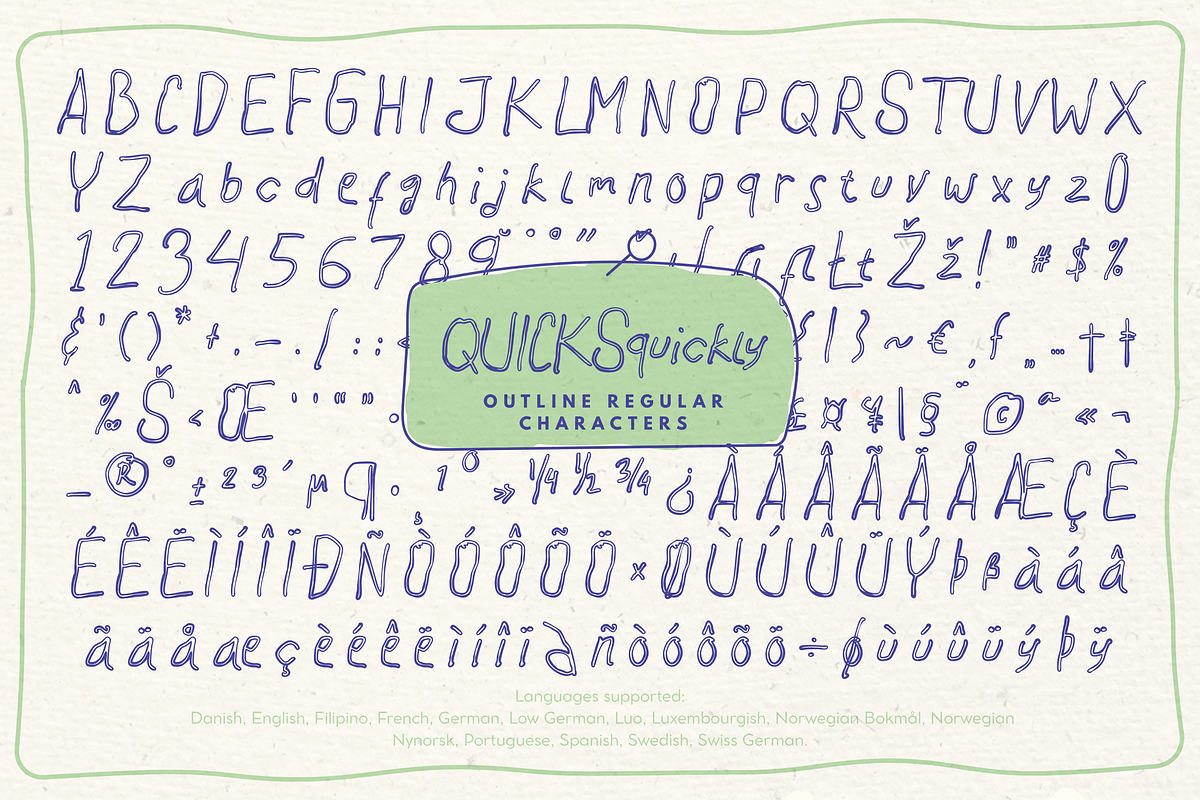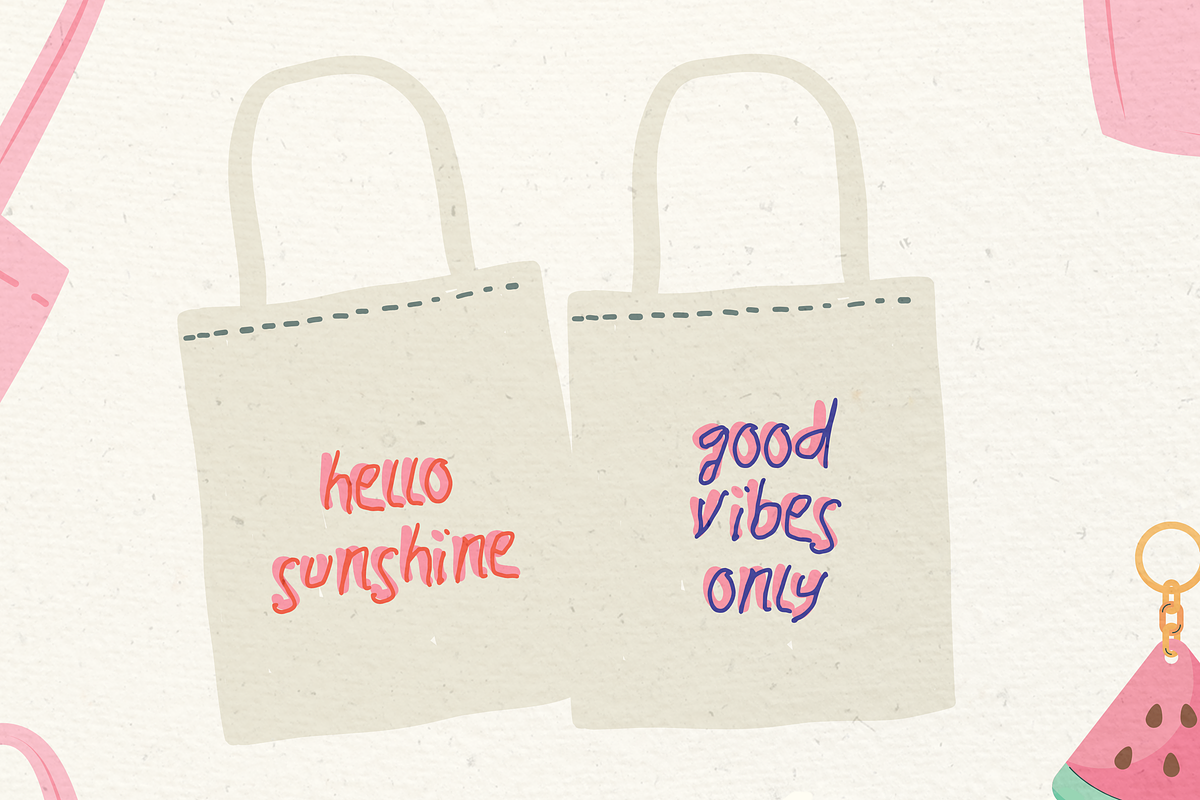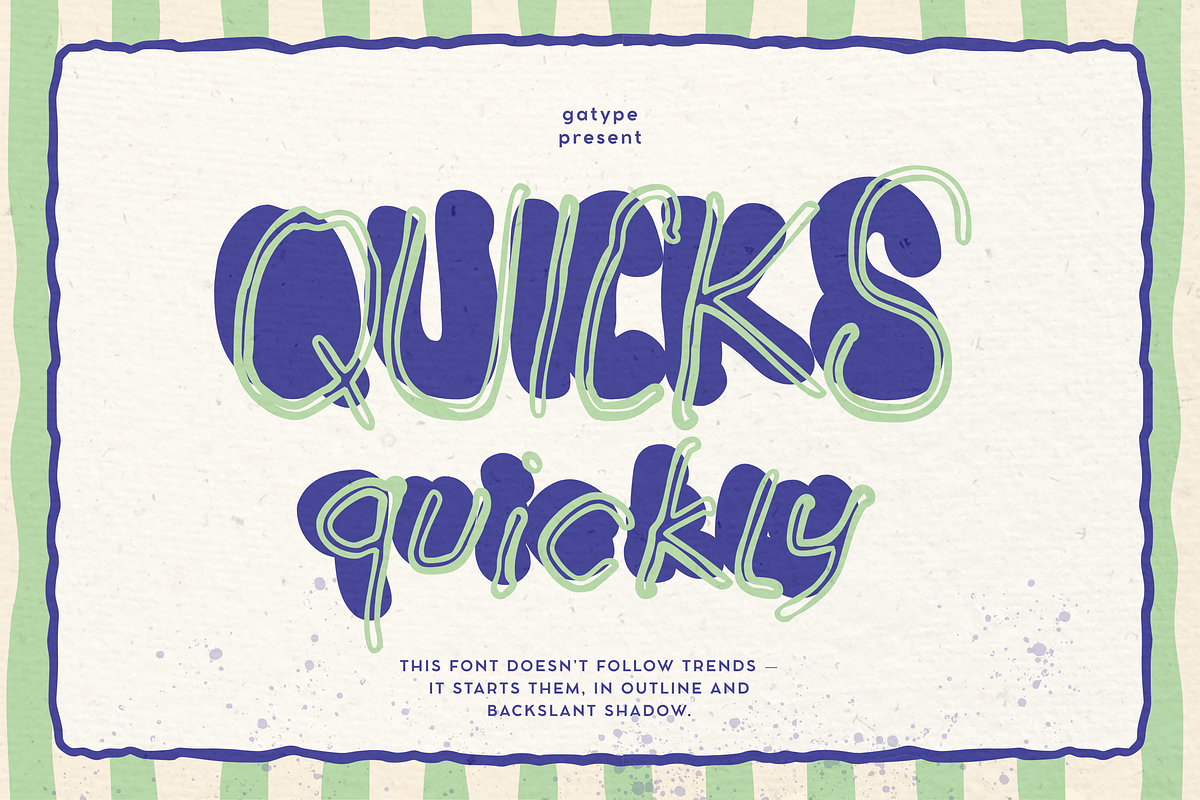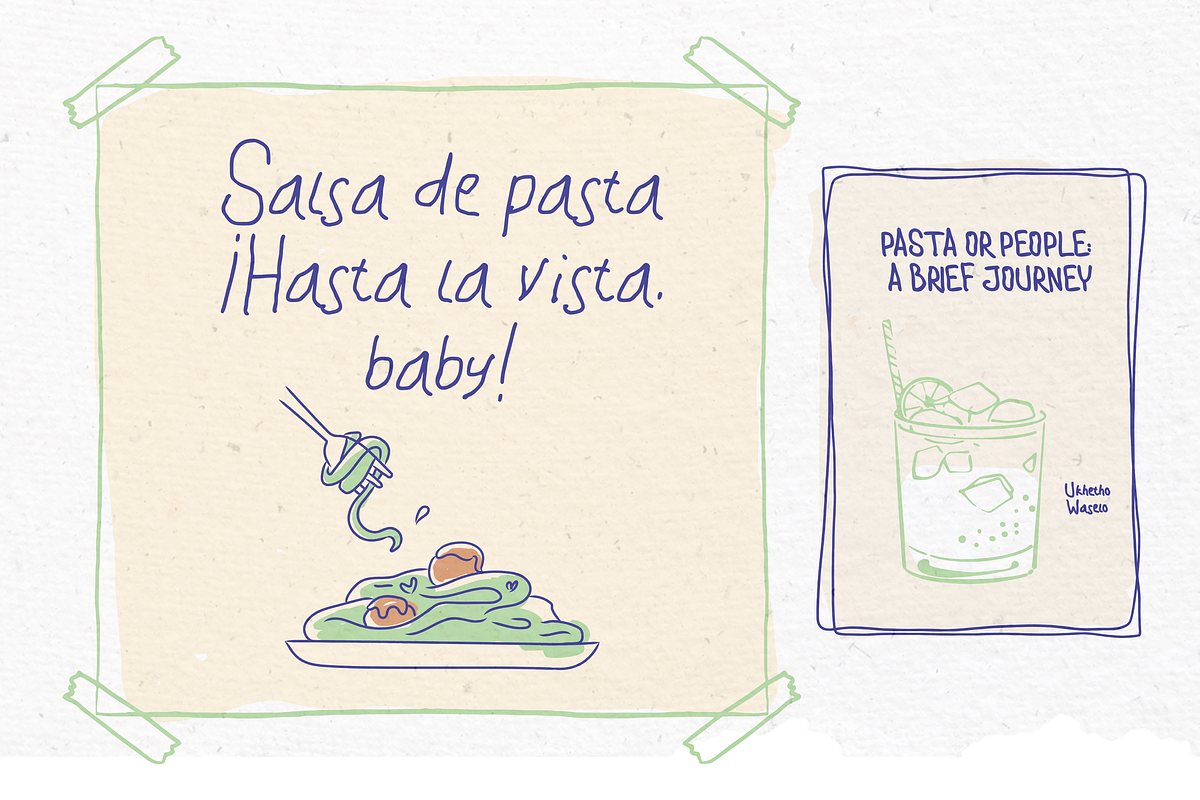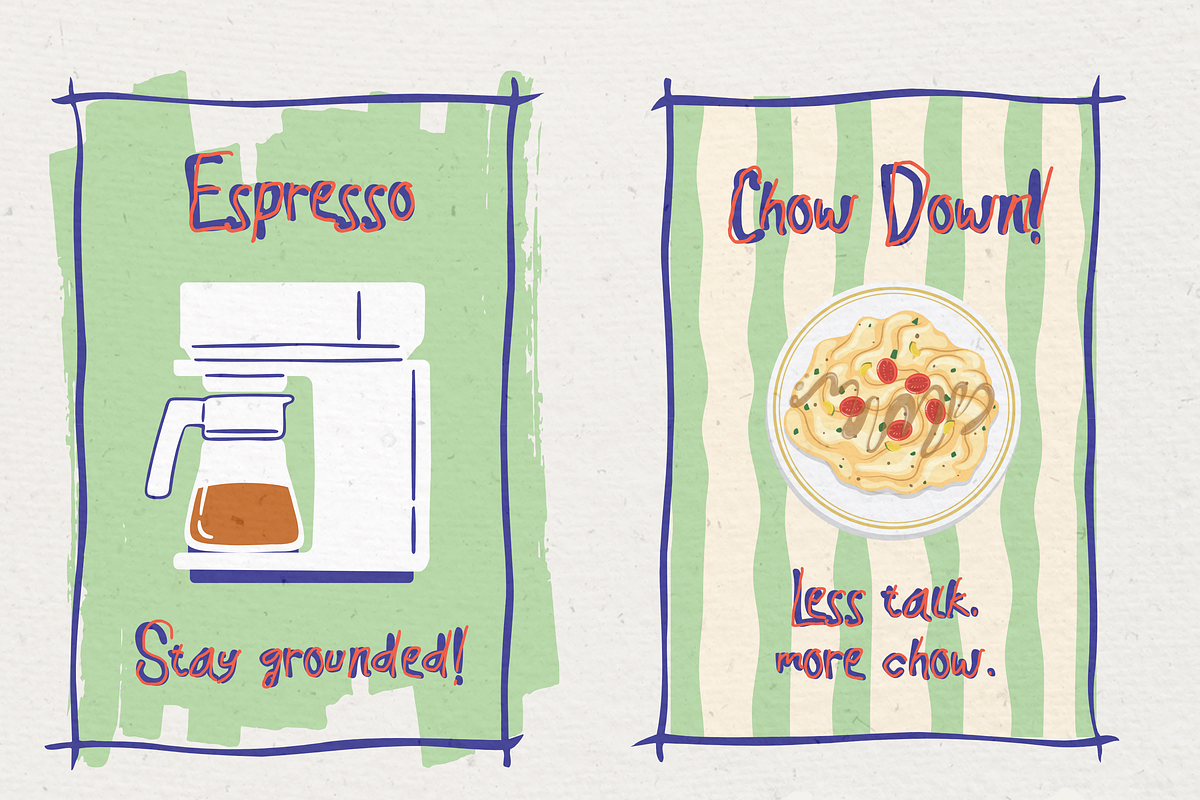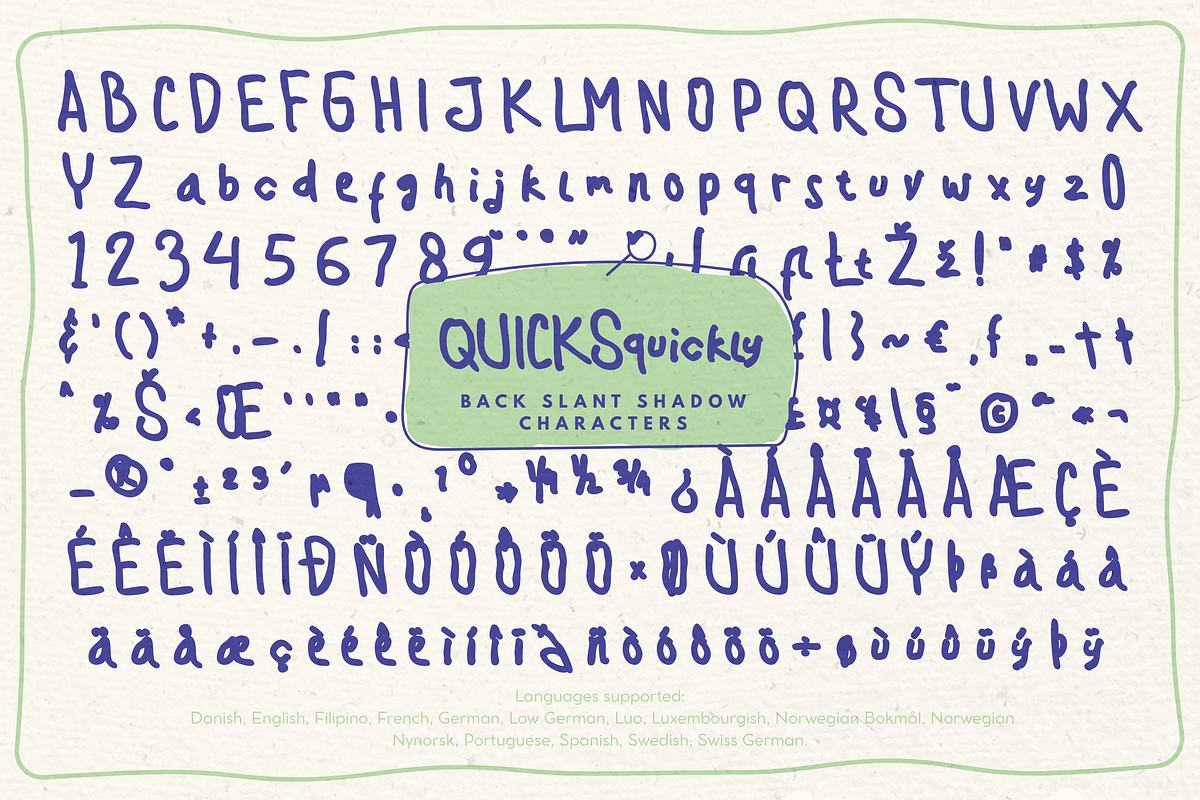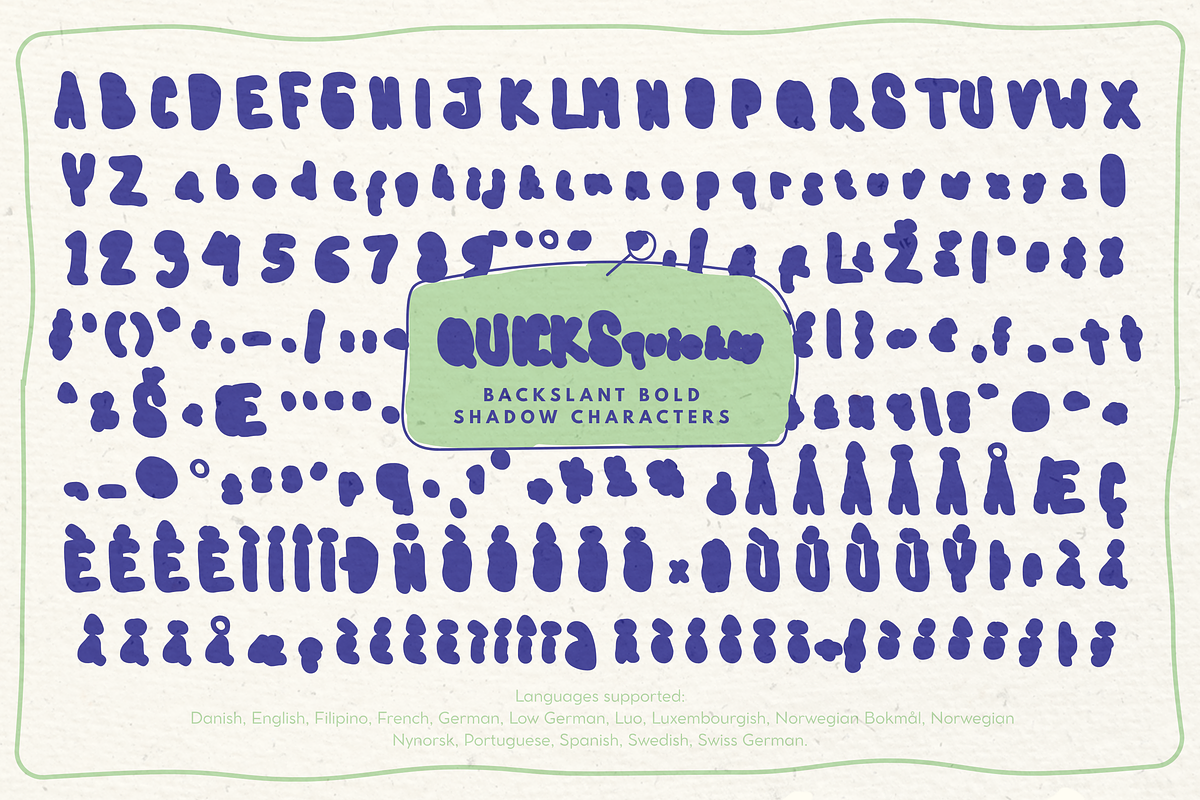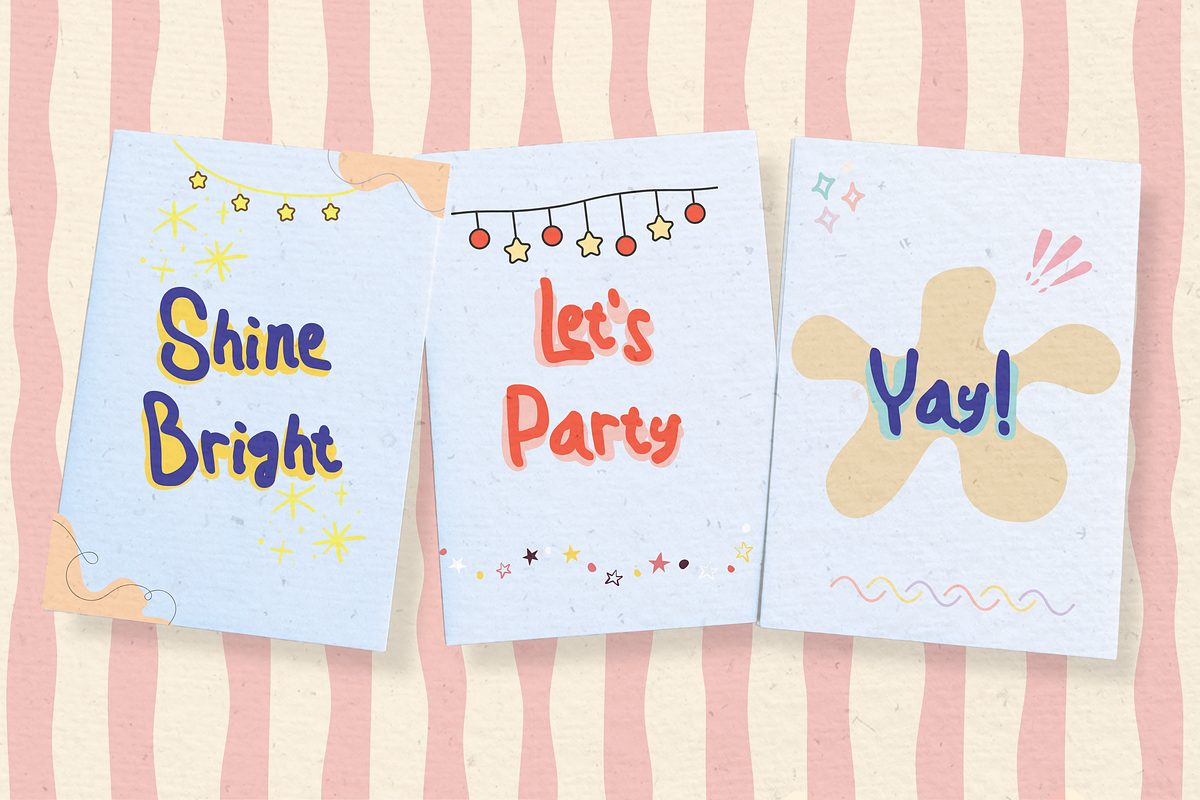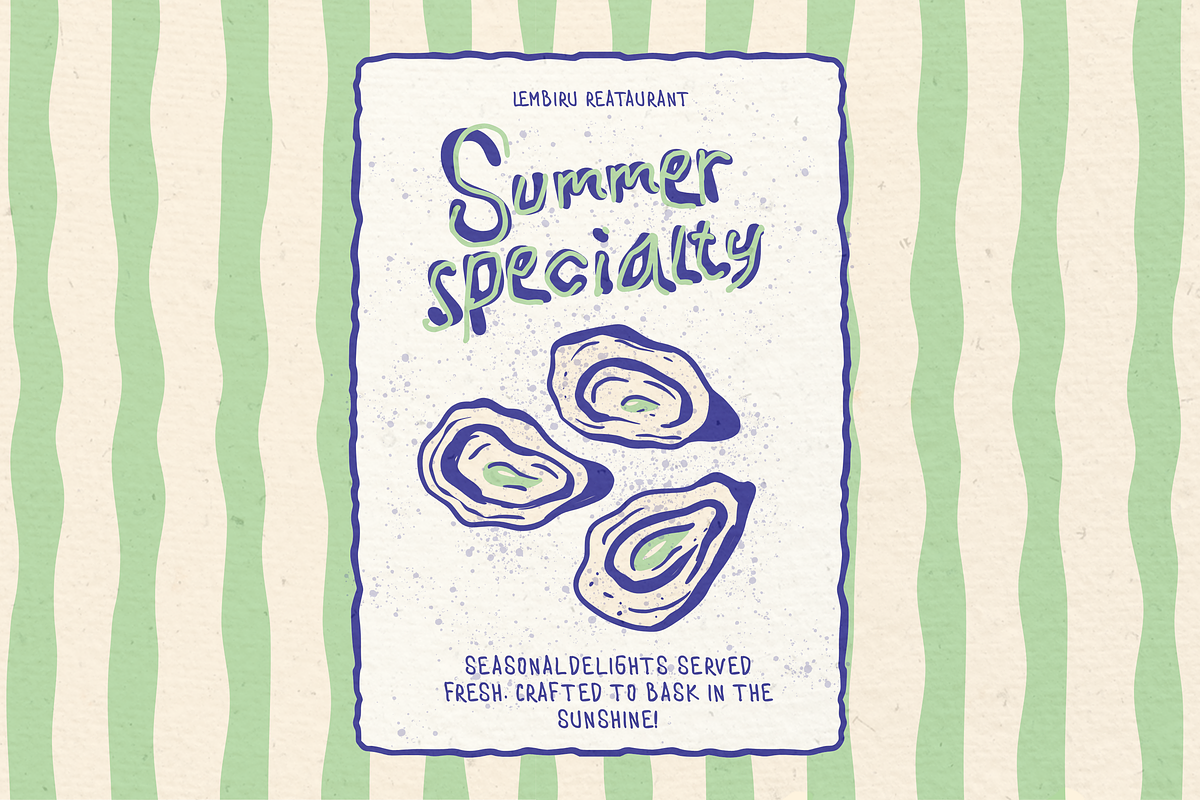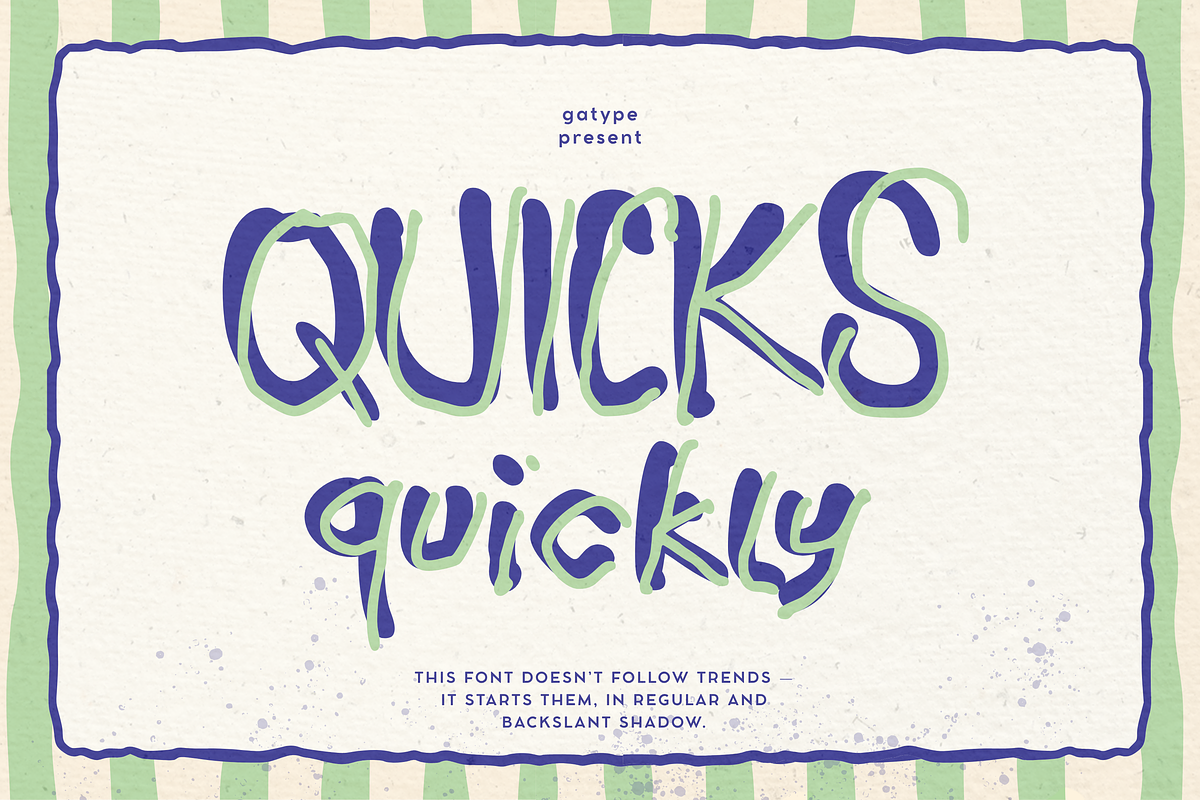
Quicksquickly
Quicksquickly is a playful, handwritten font made for those who love a casual yet energetic vibe. With every stroke, it brings movement, spontaneity, and a lighthearted charm that makes designs feel alive.
This font doesn’t follow trends — it starts them, and it comes in four unique styles to boost your creativity:
Regular – the clean, casual look with natural rhythm.
Outline – perfect for a fun twist or layered effects.
Back Slant Shadow – dynamic strokes with a left-leaning slant and playful depth.
Bold Shadow – thick, impactful letters with a striking shadow for extra punch.
Whether you’re working on creative branding, social media graphics, or expressive packaging, Quicksquickly delivers personality without trying too hard. It’s quick, quirky, and guaranteed to stick in people’s minds.
In short? It’s the font that doesn’t sit still — and that’s exactly the point.